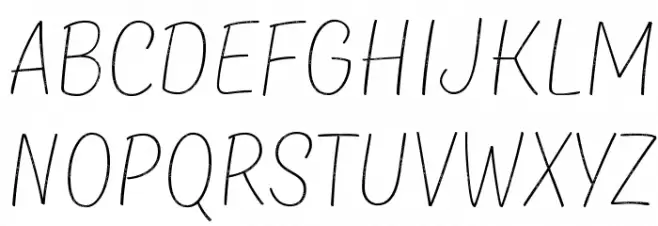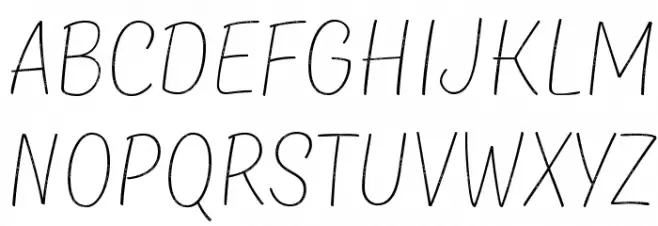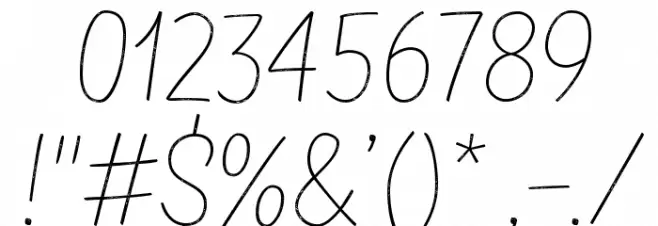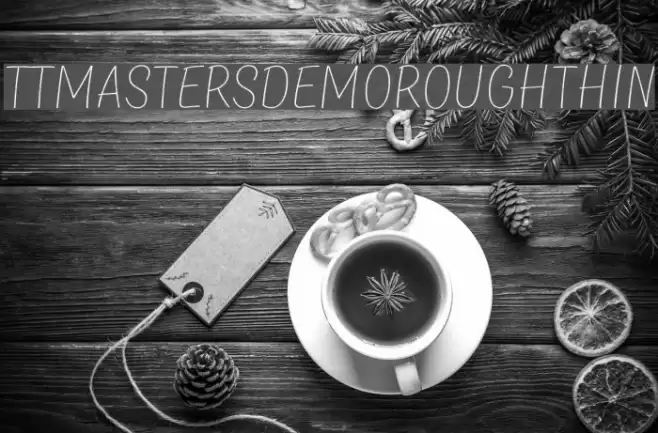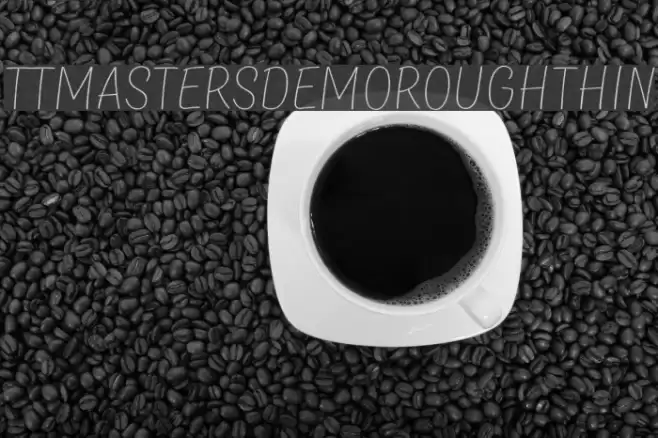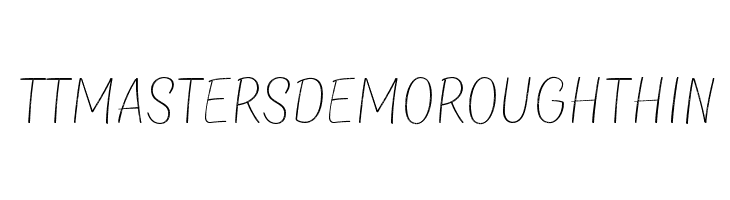
TTMastersDEMORoughThin
This font features a sleek, handwritten style with a modern touch. The characters are slightly slanted, giving a sense of motion and fluidity. The strokes are thin and consistent, providing a clean and elegant appearance. The uppercase and lowercase letters maintain a uniform height, while the numerals are slightly taller, ensuring readability. Special characters are designed with the same thin strokes, maintaining the overall aesthetic. The font's simplicity and elegance make it versatile for various design projects.
A modern, handwritten font with thin, elegant strokes and a slight slant.
- Proposed Projects: Ideal for personal branding, wedding invitations, greeting cards, and elegant product packaging.
- Weight: Light
- Use Case: Logos, Invitations, Personal Branding